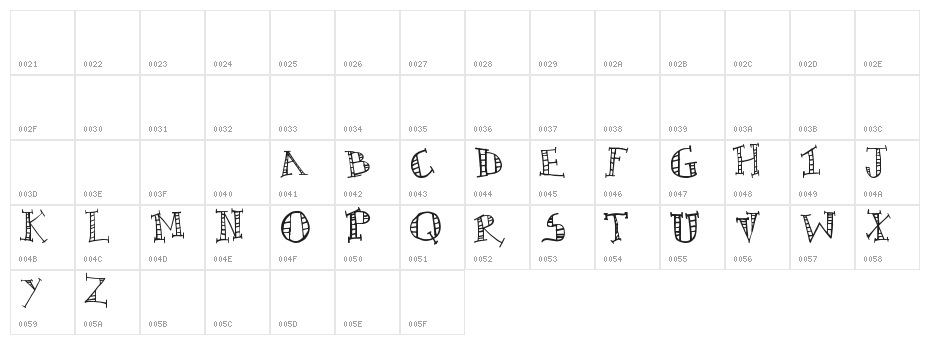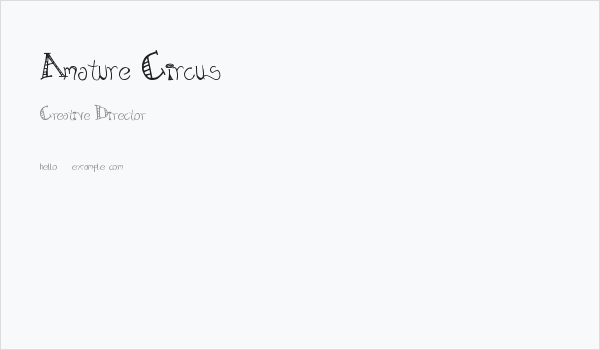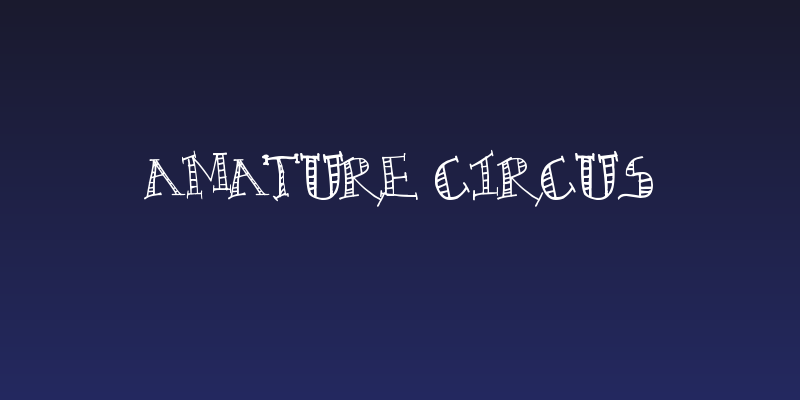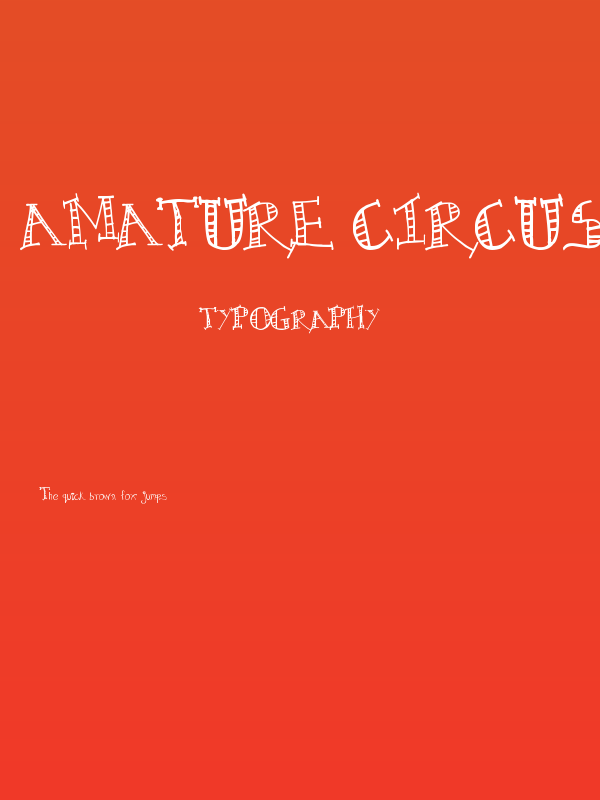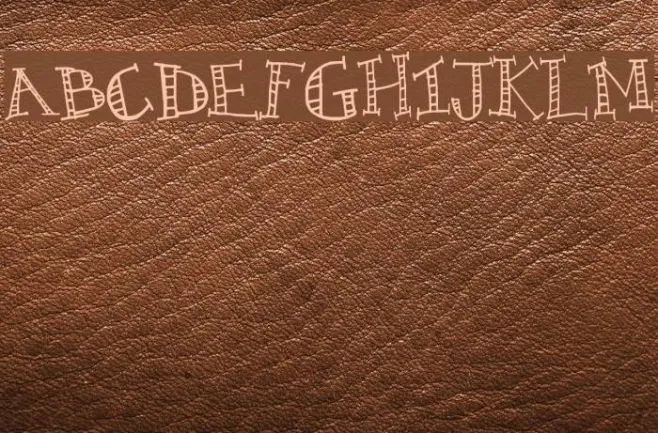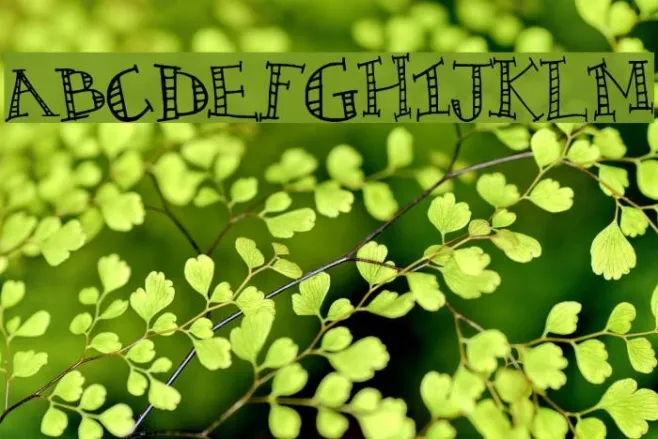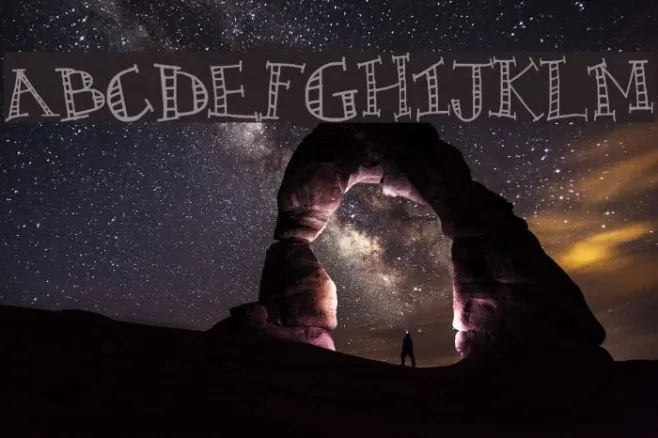
Amature Circus Font
Amature Circus Description
This whimsical and playful font features a unique, hand-drawn style that evokes a sense of fun and creativity. The uppercase letters are characterized by bold, decorative elements reminiscent of circus themes, with each letter incorporating playful patterns and shapes. The lowercase letters maintain a quirky, artistic flair, with varying line thickness and imaginative forms. The numbers and special characters continue this theme, adding a touch of whimsy to any text. This font's distinct style makes it perfect for projects that require a lighthearted and entertaining touch.
| Proposed Projects | Ideal for children's books, party invitations, circus-themed events, and playful branding. |